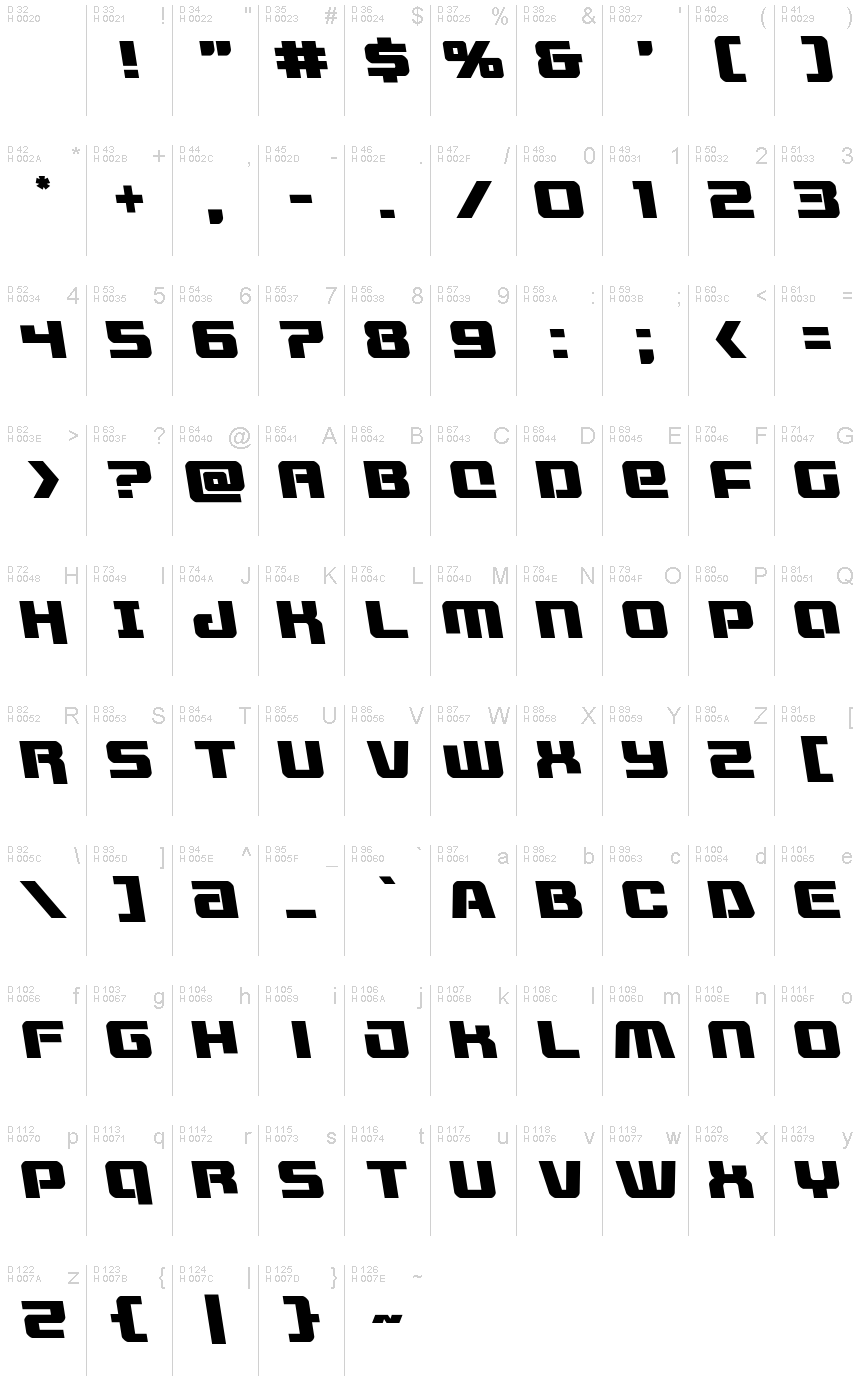
Livewired Semi-Leftalic
Livewired Semi-Leftalic from the Livewired family by Iconian Fonts is a bold, expanded display font that exudes a futuristic aura. Its strong, geometric shapes combined with an expanded width create a commanding presence perfect for making a statement. The unique left-aligned slant adds an edgy twist, enhancing its modern appeal.
Ideal for sci-fi designs, tech branding, and innovative projects, Livewired Semi-Leftalic's distinctive style will captivate and engage audiences. Whether used in headlines, posters, or logos, this font ensures your text stands out with its bold and futuristic aesthetics.